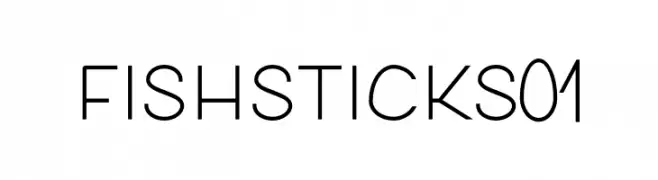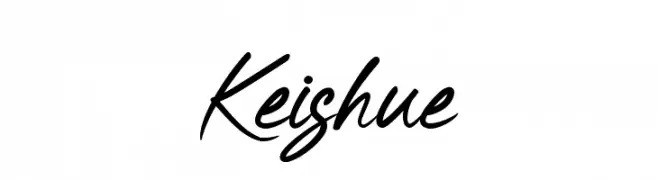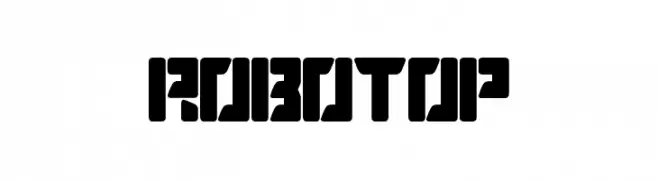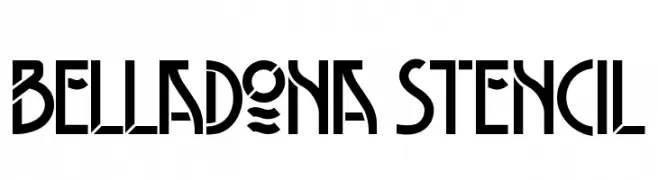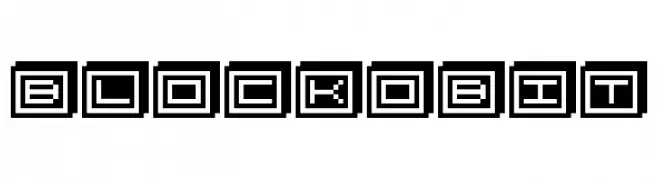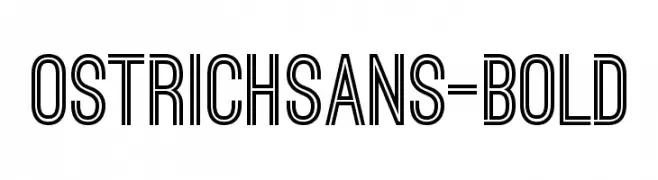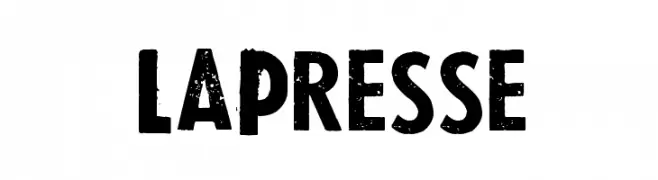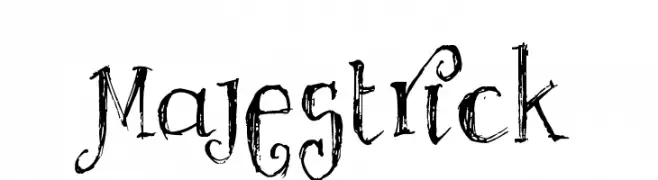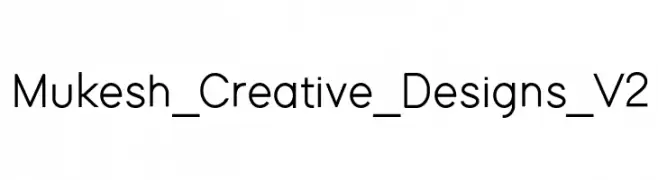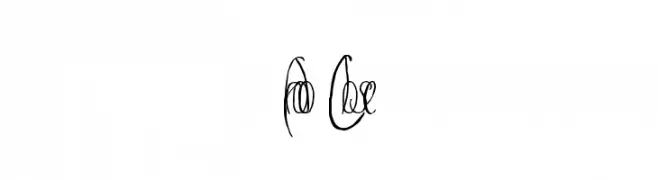
A modern, geometric sans-serif font with clean lines and uniform strokes.
A dynamic, cursive script font with a fluid, handwritten style.
A bold, geometric font with a futuristic and industrial design.
A bold, stencil-style font with geometric shapes and high contrast.
A bold, blocky font with a digital, pixelated style enclosed in squares.
A modern, geometric font with uniform stroke widths and a bold appearance.
A bold, distressed font with a vintage, rugged appearance.
An ornate and decorative font with intricate swirls and flourishes.
A clean, modern sans-serif font with uniform stroke width and excellent readability.
An intricate, decorative font with swirling, calligraphic strokes.